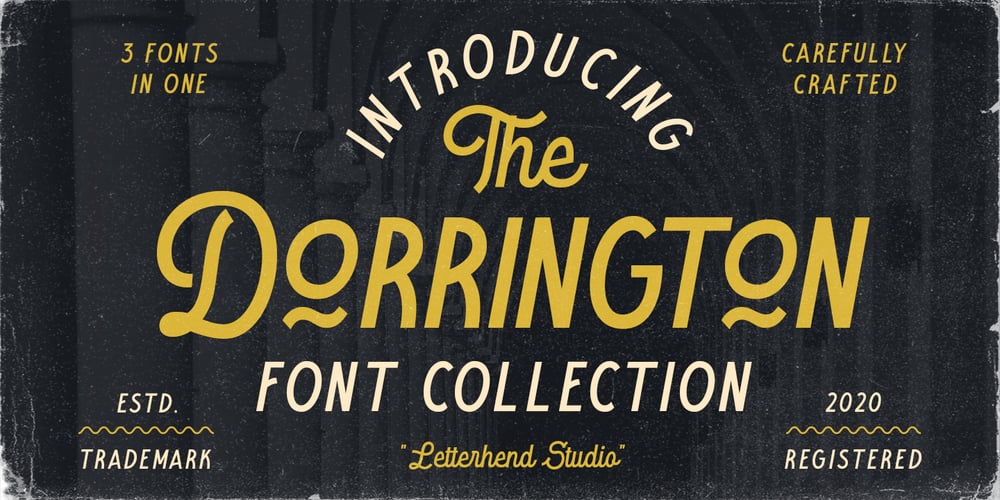
The Dorrington Font Family was designed by Hendry Juanda and published by Letterhend. The Dorrington contains 3 styles and family package options. The Dorrington is a font trio package contain a monoline script and sans serif which looks great to be paired especially for vintage and adventure theme! This font trio is purposely made for headline, display or logotype, and signature which need a standout appearing. This font is also suitable to be applied especially in logo, and the other various formal forms such as invitations, labels, logos, magazines, books, greeting / wedding cards, packaging, fashion, make up, stationery, novels, labels or any type of advertising purpose.Features : 2 Monoline Script Font and 1 Sans serif font uppercase & lowercase numbers and punctuation multilingual alternates & ligatures PUA encoded We highly recommend using a program that supports OpenType features and Glyphs panels like many of Adobe apps and Corel Draw, so you can see and access all Glyph variations.